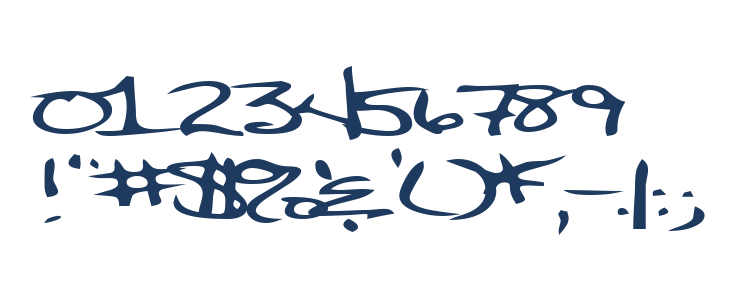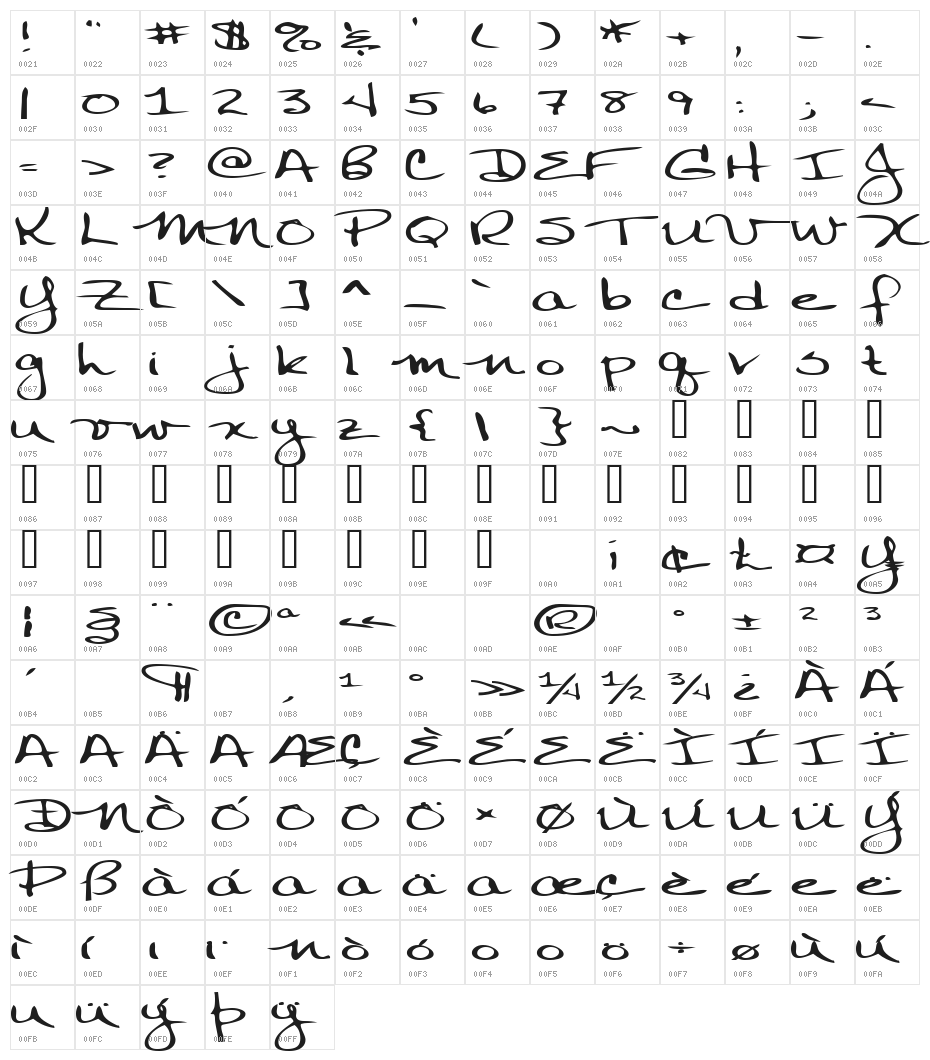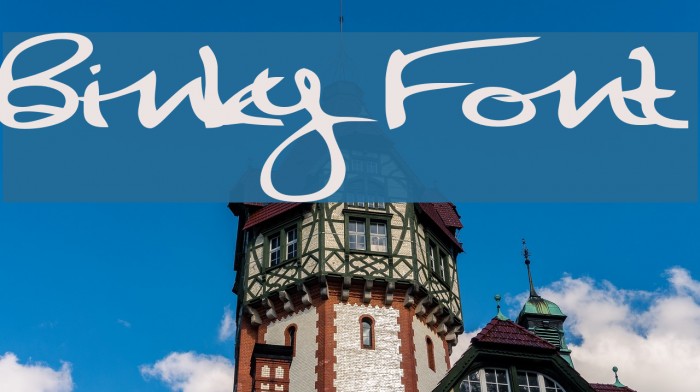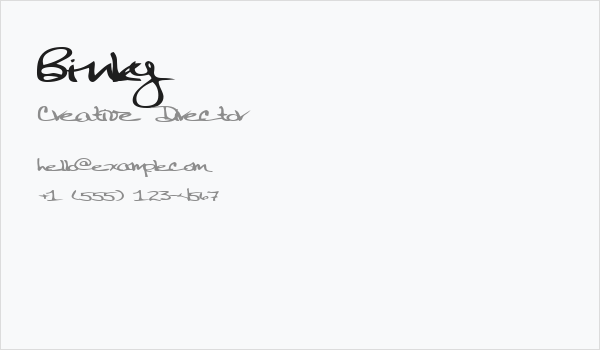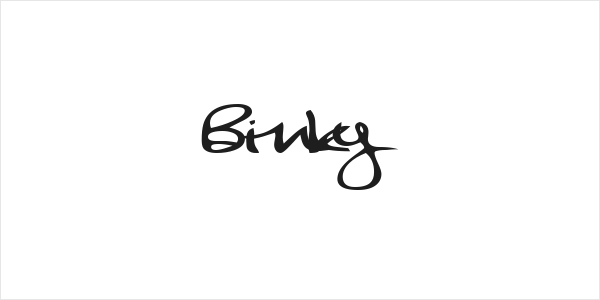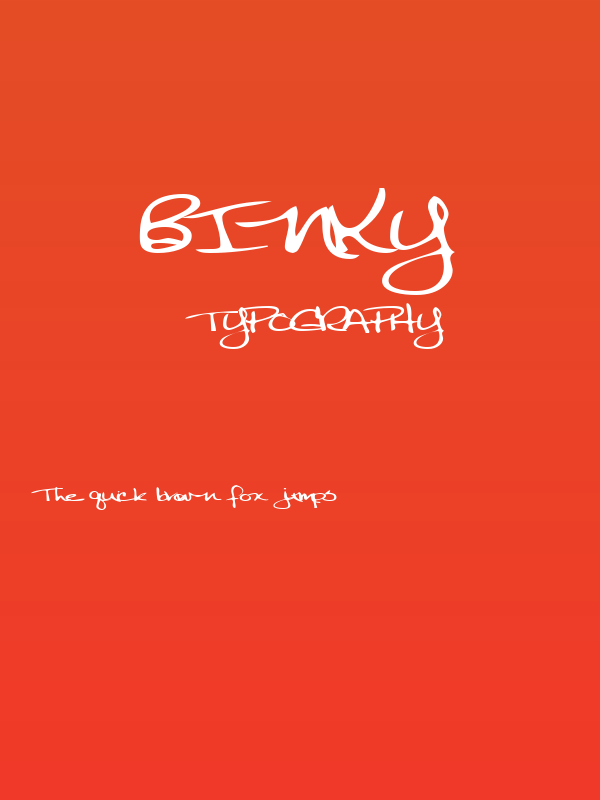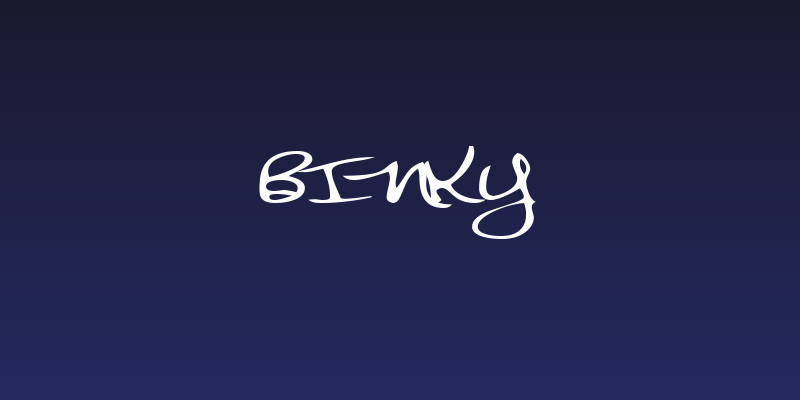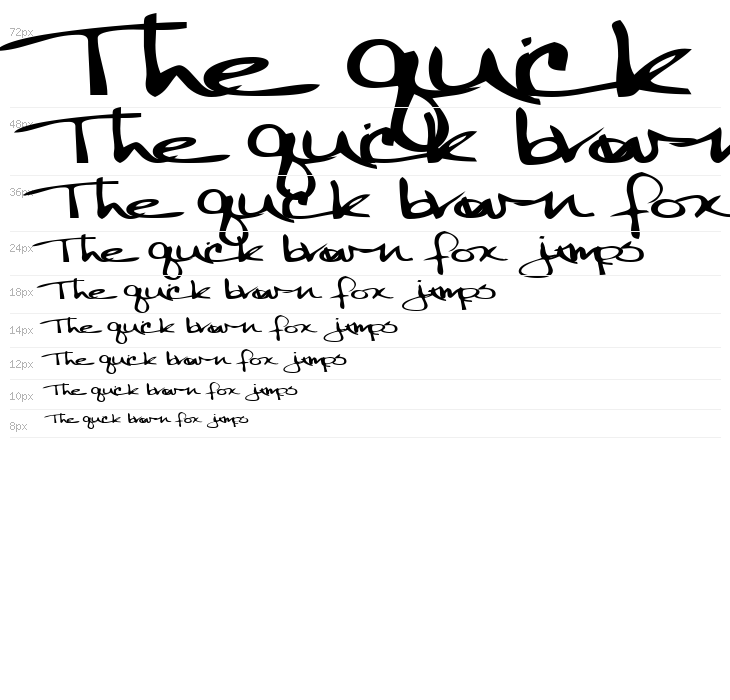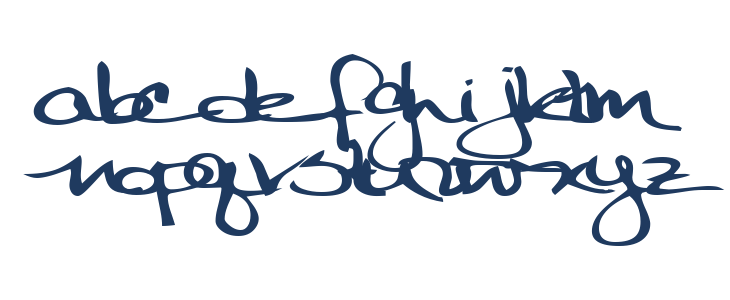
Binky Font
Binky Description
This font exhibits a dynamic and expressive handwritten style, characterized by its fluid and interconnected letterforms. The strokes are bold and sweeping, with a noticeable slant that adds to its energetic appearance. The uppercase letters maintain a consistent height, while the lowercase letters feature exaggerated loops and curves, giving the font a playful yet sophisticated look. The numbers and special characters are crafted with the same attention to detail, ensuring a cohesive visual identity. The overall design is reminiscent of calligraphic scripts, making it suitable for projects that require a personal and artistic touch.
Use CaseLogos, Headlines, Artistic projects
Proposed ProjectsIdeal for creative projects such as greeting cards, invitations, branding, and artistic posters.